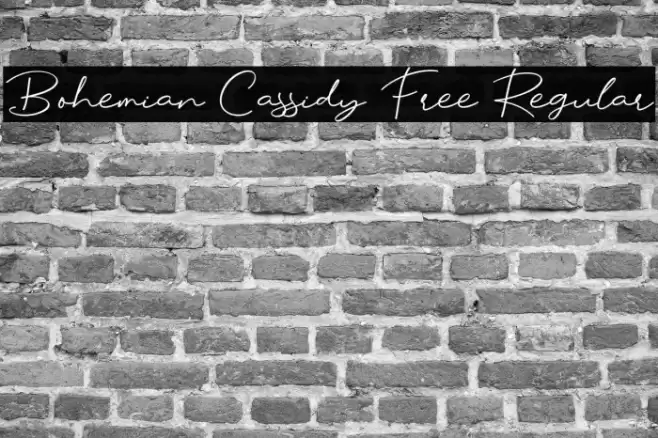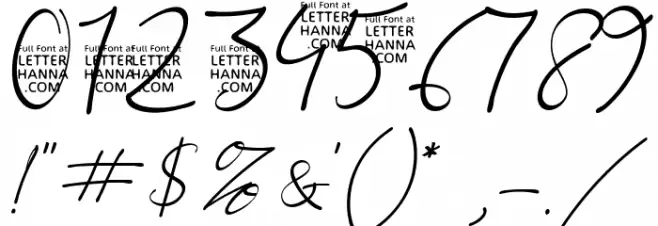
Bohemian Cassidy Free Regular Font
Bohemian Cassidy Free Regular Description
This font features a handwritten, cursive style with a flowing and elegant appearance. The uppercase letters are tall and slender, maintaining a consistent height, while the lowercase letters exhibit a smooth, connected script that mimics natural handwriting. The numerals are distinct and maintain the cursive theme, providing a cohesive look across all characters. Special characters are thoughtfully designed to match the overall aesthetic, adding a touch of sophistication. The font's organic and fluid strokes make it ideal for projects that require a personal and artistic touch.
A cursive, handwritten font with elegant, flowing strokes from Handwritten fonts.